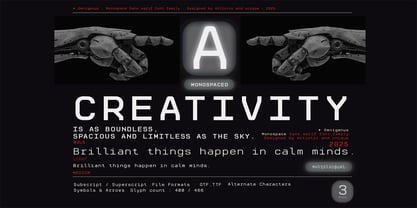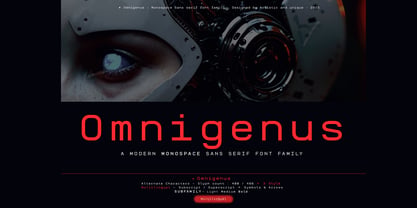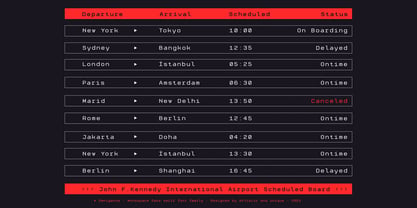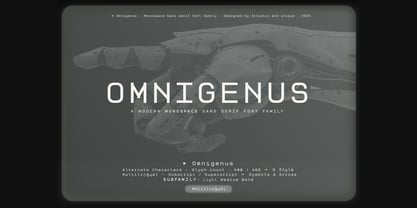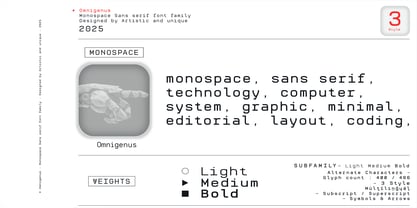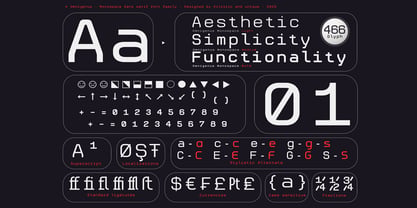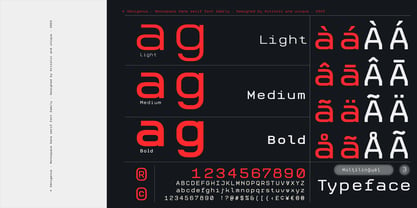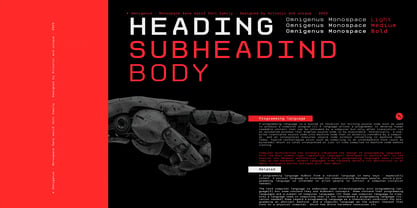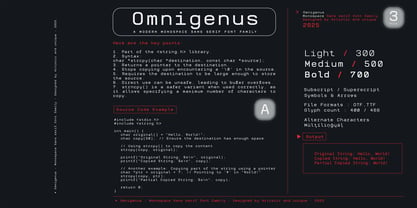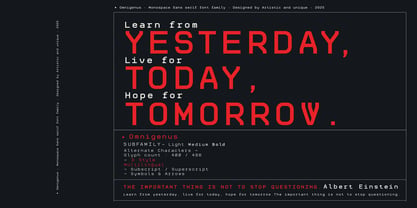
Omnigenus
Omnigenus - Monospace Sans serif font family - Multilingual support - 3 styles. Omnigenus - A functional and contemporary font designed for technology-focused applications, offering a futuristic approach to modern, monospaced fonts. Inspired by the visual, mechanical, and industrial heritage of the tech world, Omnigenus not only boasts visual appeal but also the high readability that distinguishes monospaced fonts. These features aim to enhance the user experience in technological environments. Its futuristic design and functionality make it perfect for technology-related works. Omnigenus multilingual structure and usability meet the sought-after characteristics of futuristic and contemporary design approaches and pursuits, while it’s timeless, clear, and clean structure make it an ideal solution for your projects. Equal spacing across all characters ensures high readability and alignment, making Omnigenus an ideal choice for user interfaces, coding, tabular data, and technical documentation. This font family is also well-suited for screen-based programming environments, editorial layouts, or any branding project requiring minimalist design. By using light colors for body text, bold accents, and various symbols, it offers flexibility for both functional and impactful applications. Your font choice is a key element that can enhance the dynamism and spirit of your project. Nuances and distinctive features can make your projects stand out by effectively utilizing these features. Uses: - Allows you to change the weight of a word without losing text alignment. - Provides excellent performance at normal-width text sizes and page display sizes with design details optimized for readability. - Ideal for coding, user interfaces, and digital displays, this font is also perfect for contemporary branding, web design, packaging, technology design, and countless other projects. - 466 glyphs and multilingual support. - Alternate Characters, Uppercase/Lowercase Letters, Glyph Composition/Separation, Arrows, Subscripts, Superscripts, Symbols. Enjoy!